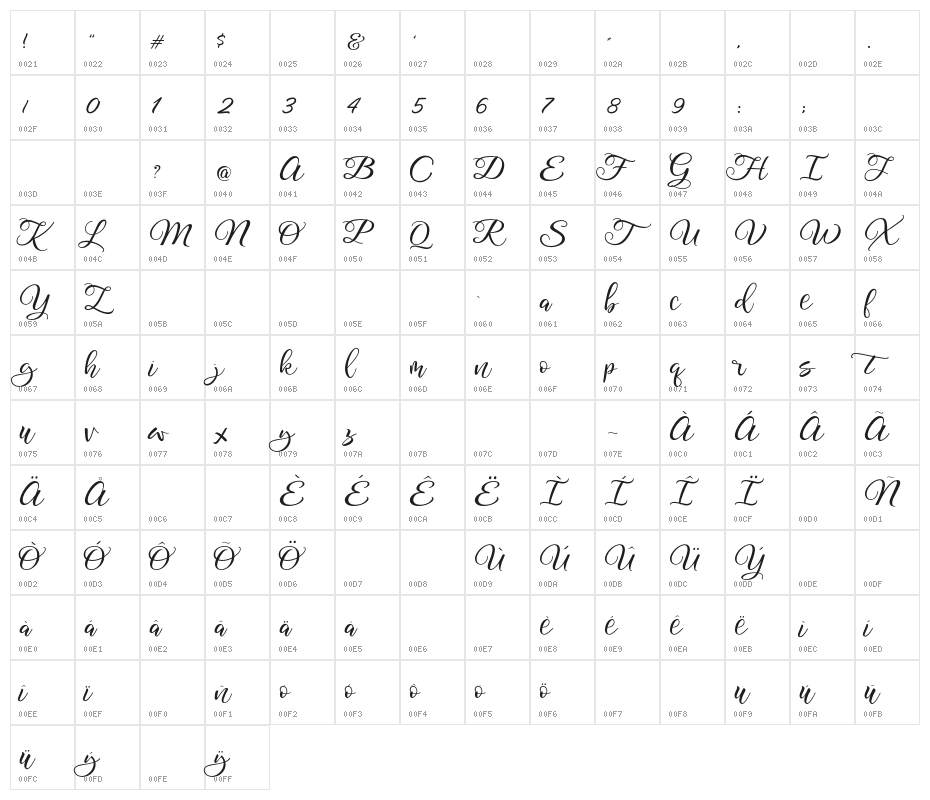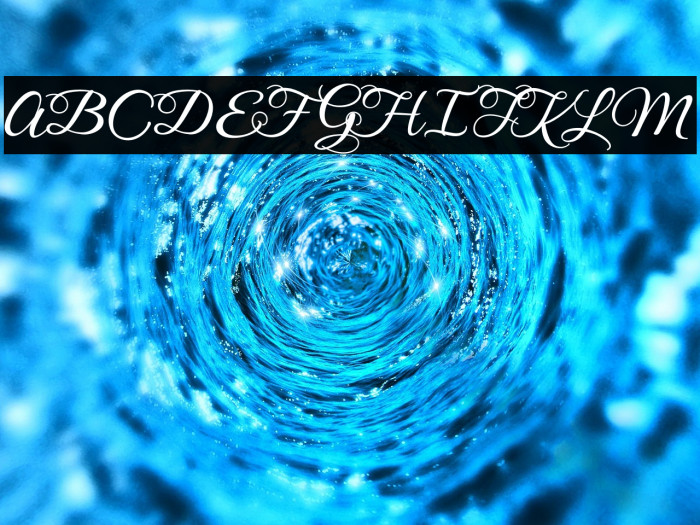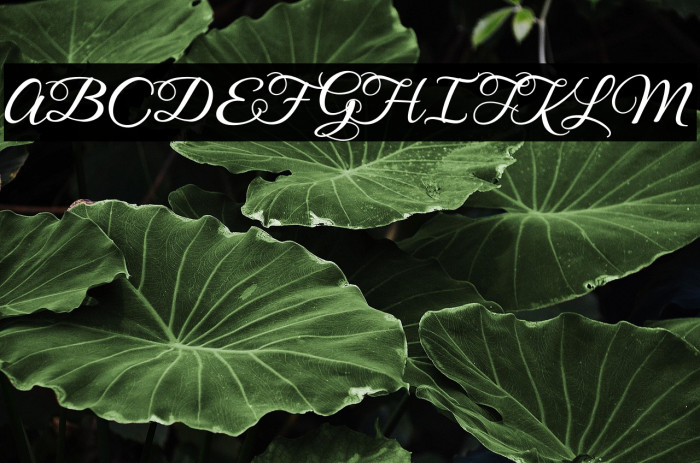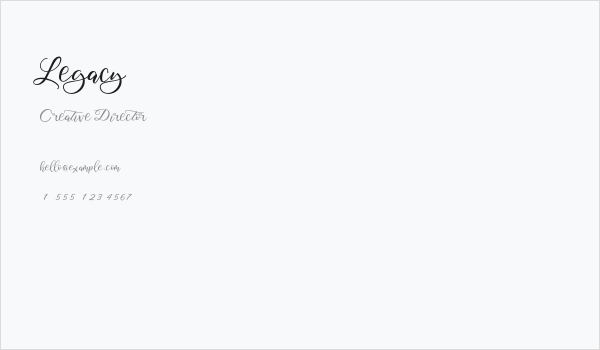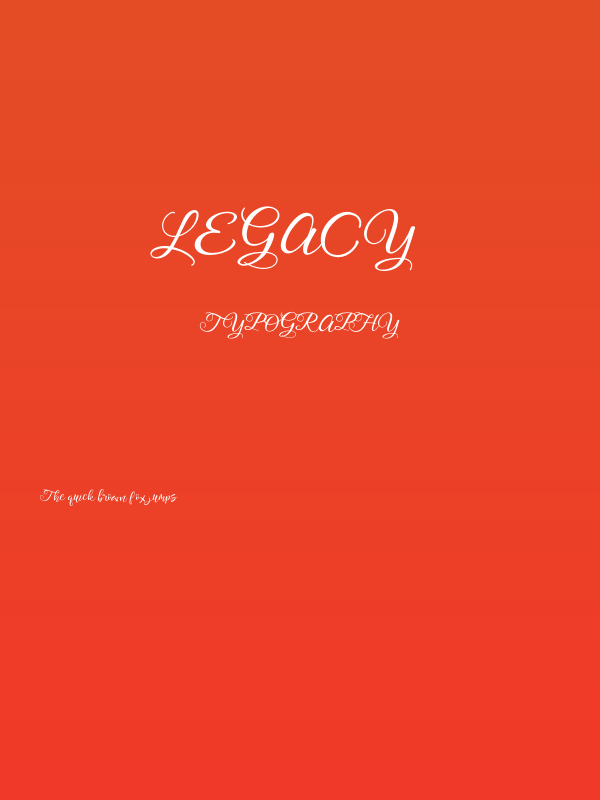
Legacy Font
Legacy Description
This elegant script font features a flowing, cursive style with intricate swashes and flourishes. The uppercase letters are particularly ornate, with loops and curves that add a touch of sophistication. The lowercase letters maintain a consistent flow, making them ideal for creating a seamless handwritten look. The numerals are clear and stylish, complementing the overall aesthetic. Special characters are designed with the same attention to detail, ensuring a cohesive appearance across all glyphs. This font exudes a sense of elegance and grace, perfect for projects that require a touch of class and refinement.
| Overall Style | Elegant, Decorative |
| Use Case | Logos, Invitations, Decorative text |
| Proposed Projects | Wedding invitations, luxury branding, elegant stationery, greeting cards, and high-end packaging. |